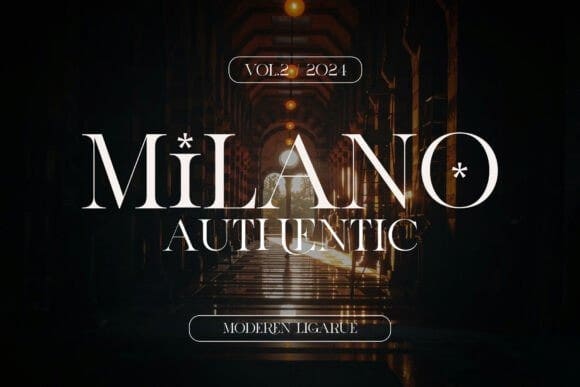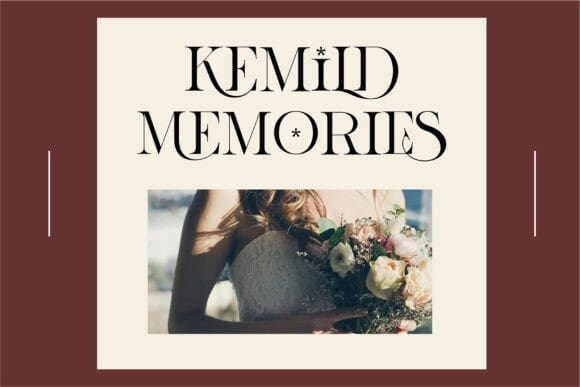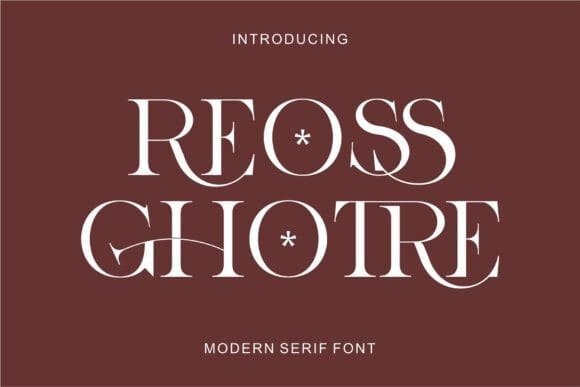
Reossghotre Font
Reossghotre Font. Trendy, elegant, luxury, retro & modern style serif font for your new fancy projects. The stylish, creative, and classic style of Caroline font will be great for any modern or classy branding project. A lot of alternates and ligatures will help you create a unique and original logo